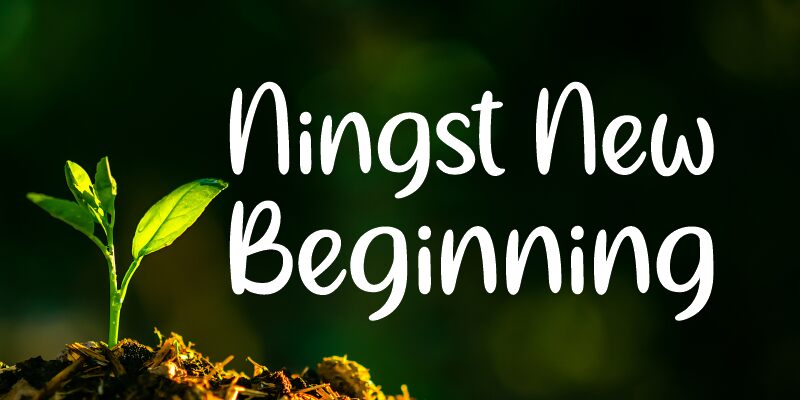
Ningst New Beginning is a lovely handwritten font designed by Nista Ningsih Nazara and Situjuh Nazara. Perfect for creating beautiful hand-crafted designs, this font is suitable for everything from wedding invitations to greeting cards, posters, and more.
Ningst New Beginning